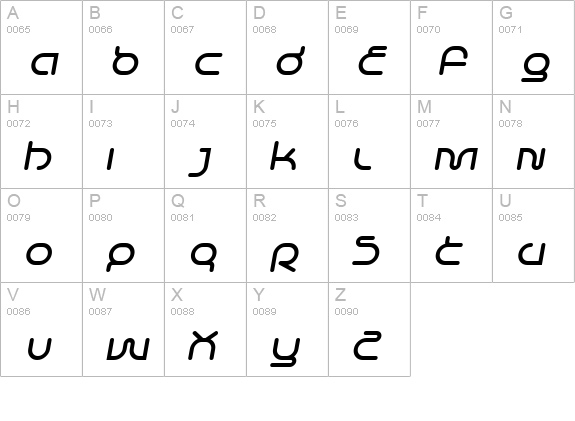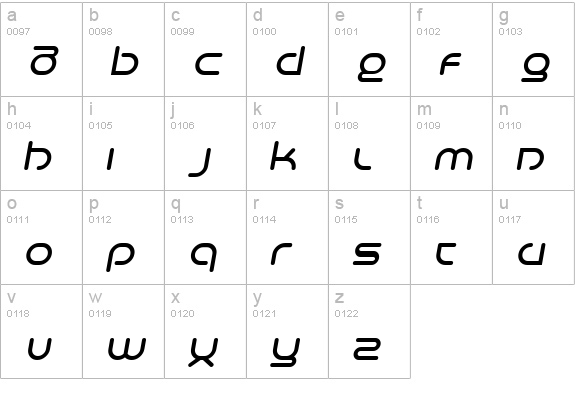
Life in Space Italic Font Details
Life in Space Italic is a distinctive, italic variant in the Life typeface family \xE2\x80\x94 well suited to design and typography projects.
Life in Space is a captivating italic font that brings a modern and futuristic vibe to any design project. Its sleek lines and stylish curves evoke a sense of adventure and exploration, making it the perfect choice for space-themed designs or any project that needs a touch of cosmic flair. This font is versatile and can be used for various purposes, from branding to editorial design. With its unique design and eye-catching style, Life in Space stands out from the crowd and adds a sense of sophistication to any project. Whether used in headlines, logos, or body text, this font is sure to make a statement. Its bold and dynamic appearance captures the imagination and transports viewers to a world beyond our own. Best of all, Life in Space is freely available to download at FontsMarket.com. So go ahead and bring a touch of the cosmos to your designs with this stunning italic font. Let your creativity soar with Life in Space and take your projects to new dimensions.